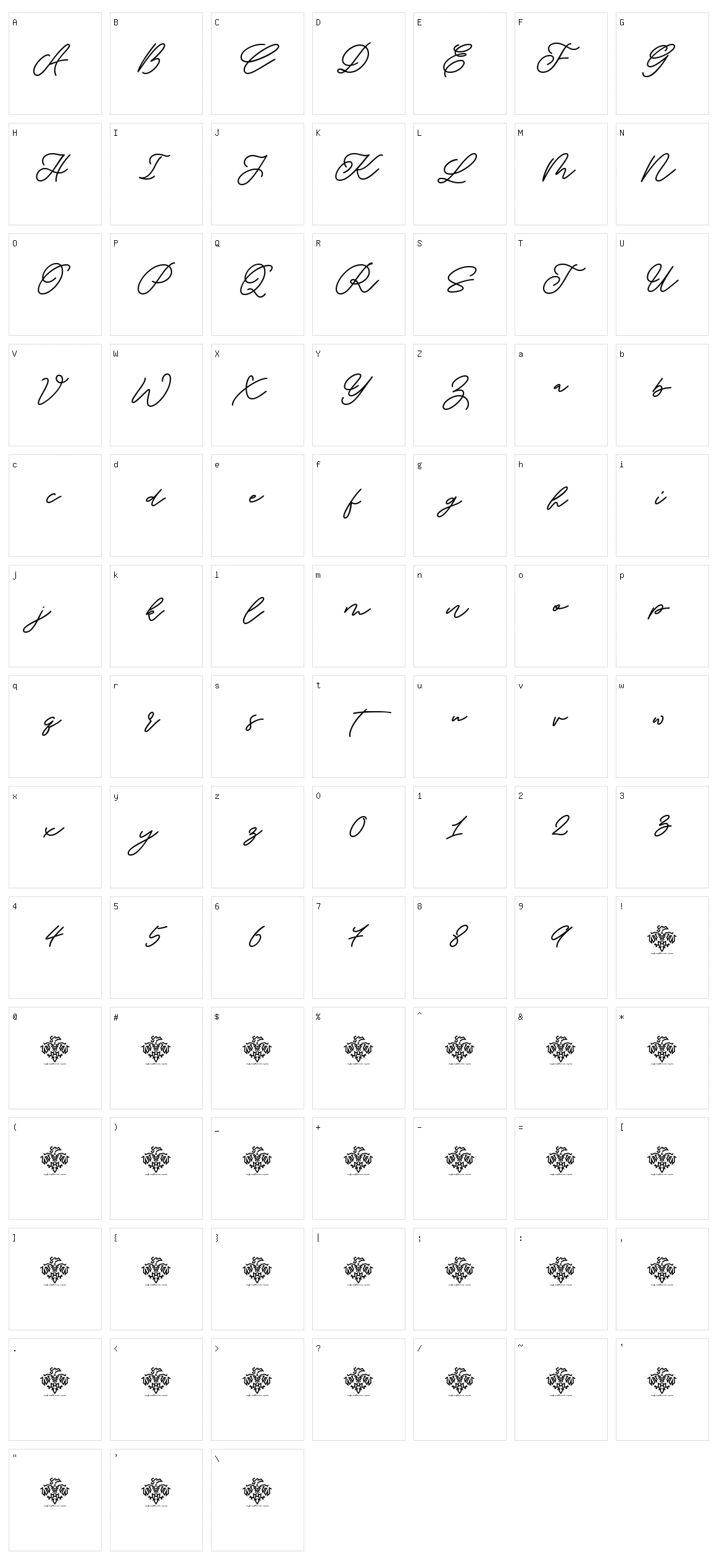
SATURDAY CHAMPAGNE is a monoline modern calligraphy script. Perfect for titles, headings and logotypes for blogs, ads, quote prints, home decor, book title, invitation, birthday, custom product, lifestyle imagery (like quotes and stuff).
This font is written by the amazing hand letterer and fellow artist of mine, Leah Chong, and is our first collaboration project that I really enjoyed working together. Definitely will do more of these kind of projects.